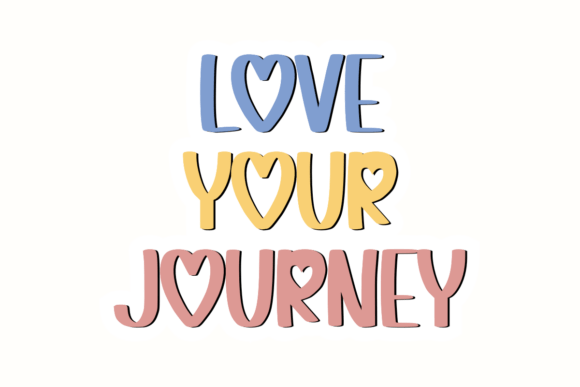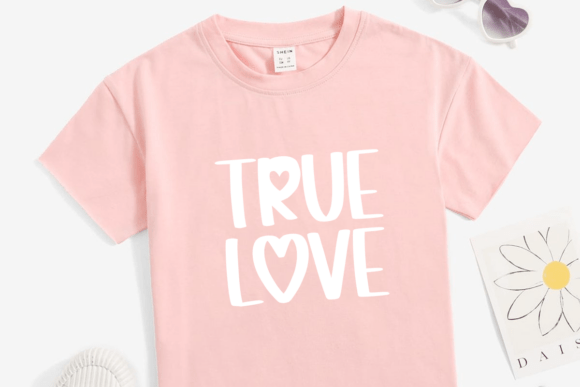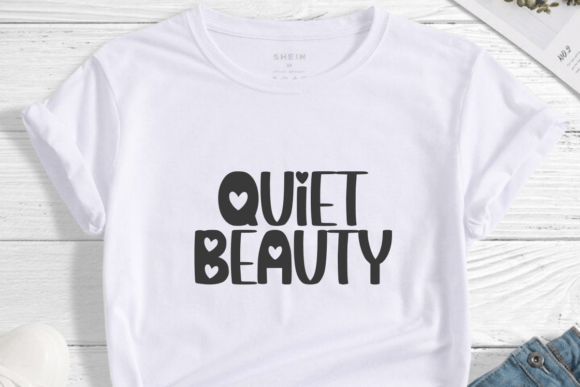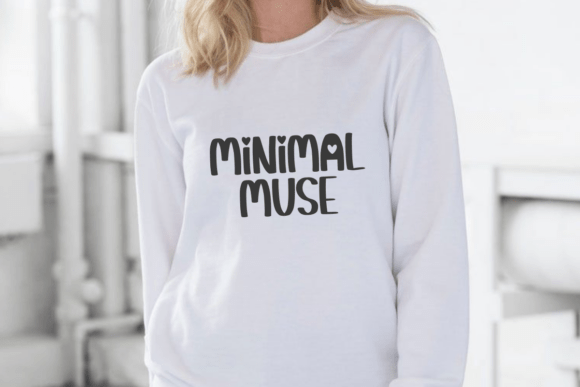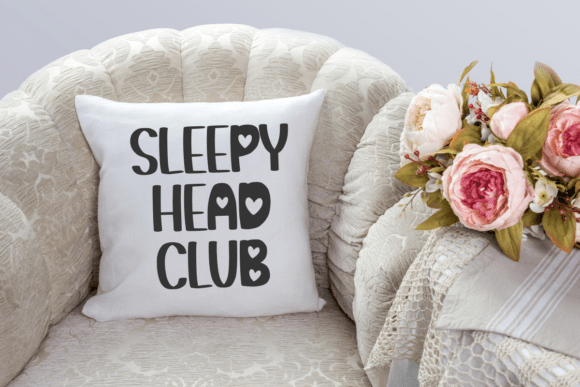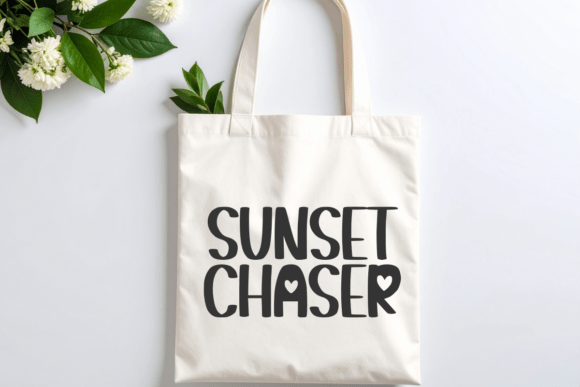
Introduction to Cheerful Dreams Font
As I sat at my craft table, surrounded by scraps of paper and glitter, I couldn’t help but feel a sense of excitement and possibility. I was in the midst of planning a birthday party for my little one, and the options for creative expression seemed endless. That’s when I stumbled upon the perfect design resource: the Cheerful Dreams Font. This adorable sans serif handwriting font is a game-changer for any creative project.
With its soft, friendly, and natural look, the Cheerful Dreams Font brings a warm handcrafted feeling that’s simply irresistible. Whether you’re a seasoned crafter or just starting out, this high-quality font is a must-have in your design arsenal. And the best part? It’s incredibly easy to use, making it perfect for a wide range of applications, from kids’ worksheets to scrapbook designs.
As a designer, I can attest to the value of having access to top-notch design resources like the Cheerful Dreams Font. With its transparent background and free download option, this font is a valuable addition to any creative project. And with its versatility and ease of use, it’s no wonder why crafters and designers alike are falling in love with this charming font.
Key Features of Cheerful Dreams Font
- Unique Hand-Drawn Style: The Cheerful Dreams Font features a distinctive hand-drawn design that adds a touch of whimsy and personality to any creative project.
- High-Quality Design Resource: This font is a high-quality design resource that is perfect for designers, artists, and anyone looking to add a creative touch to their work.
- Perfect for Creative Projects: The Cheerful Dreams Font is ideal for use in a variety of creative projects, including greeting cards, party invitations, and other design projects that require a playful and whimsical touch.
Honest Review: Cheerful Dreams Font
I recently stumbled upon the Cheerful Dreams Font while searching for a high-quality design resource for a creative project. Initially, I was drawn in by its playful and whimsical vibe. Upon closer inspection, I found it to be a solid addition to my design arsenal.
- Its transparent background makes it easy to pair with various backgrounds.
- The font is highly legible and clear, making it perfect for body text.
- The design is quite versatile and can be used for a wide range of creative projects.
- The font may not be the best choice for formal or professional designs due to its playful nature.
- It’s not as comprehensive as some other font families, with limited weights and styles available.
Overall, I’m quite pleased with the Cheerful Dreams Font. While it may not be the most comprehensive font family, its unique personality and high quality make it a great addition to any designer’s toolkit. I’d definitely recommend it for creative projects that require a touch of whimsy and fun.
Tips for Getting the Most Out of Cheerful Dreams Font
For optimal results, use the Cheerful Dreams Font in conjunction with a high-quality image or background. Experiment with different font sizes and colors to achieve the desired effect.